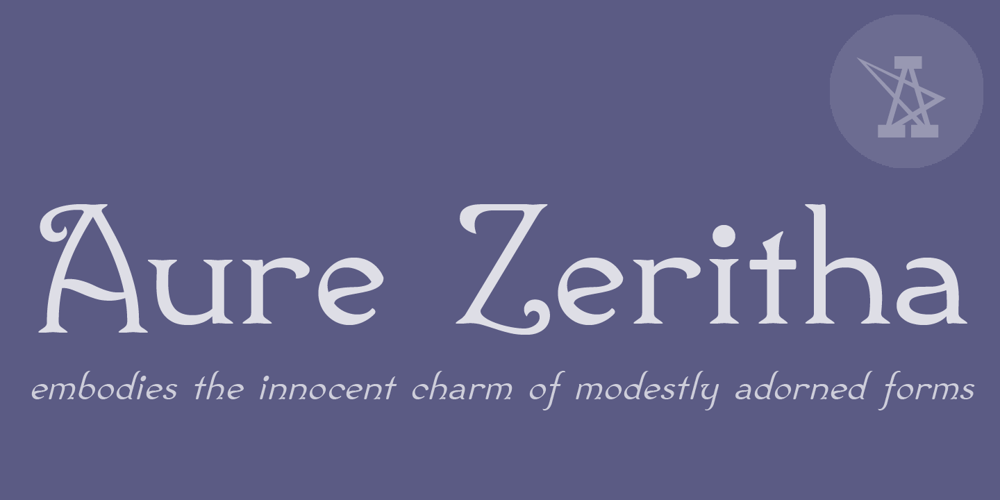
Aure Zeritha
Aure Zeritha font
Aure Zeritha Font Family was designed by Aurora Isaac and published by Aure Font Design. Aure Zeritha contains 8 styles and family package options. Aure Zeritha emotes the unassuming charm of fairytale romance. The modestly adorned forms of this decorative serif font engage the reader with a subtext of innocence. Zeritha brings an ingenuous romance to text and titles and a guileless promise of adventure to astrological expressions and chartwheels. The breadth of typographic textures revealed in its bold and italic forms is given depth by the charm of its small-caps and the delight of its curly alternates. Zeritha is an original design developed by Aurora Isaac, first released in the LP glyphset in 2011. After more than a decade in development, 2018 marks the release of the CJ and KB glyphsets, available in regular, italic, bold, and bold-italic. The CJ glyphset is a full text font supporting a variety of European languages. A matching set of small-caps complements the extended lowercase and uppercase glyphsets. Supporting glyphs include standard ligatures, four variations of the ampersand, and check-mark and happy-face with their companions x-mark and grumpy-face. Numbers are available in lining, oldstyle, and small versions, with numerators and denominators for forming fractions. Companion glyphs include Roman numerals, specialized glyphs for indicating ordinals, and a variety of mathematical symbols and operators. The CJ glyphset also includes an extended set of glyphs for typesetting Western Astrology. These glyphs are also available separately in the KB glyphset: a symbol font re-coded to allow easy keyboard access for the most commonly used glyphs. Aure Zeritha stands its own as a text font, but for extended text, try pairing Zeritha with its distant cousin, Aure Declare. Use Zeritha where the fairytale romance is needed; use Declare for tight text and practical contrast. Give Aure Zeritha a trial run! You may discover a permanent place for this font family in your typographic palette. >> AureFontDesign.com